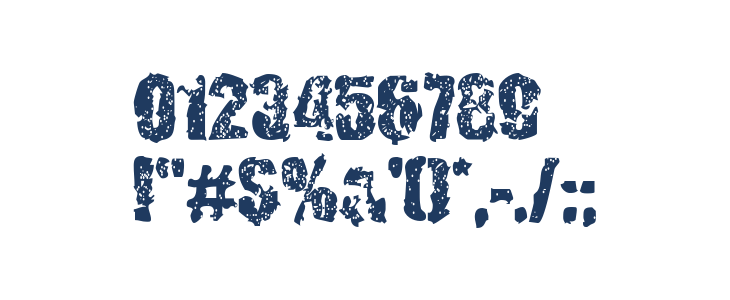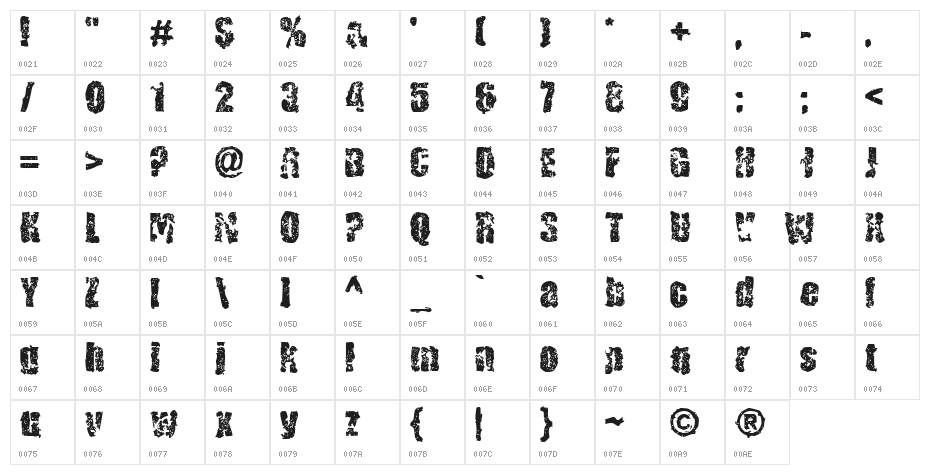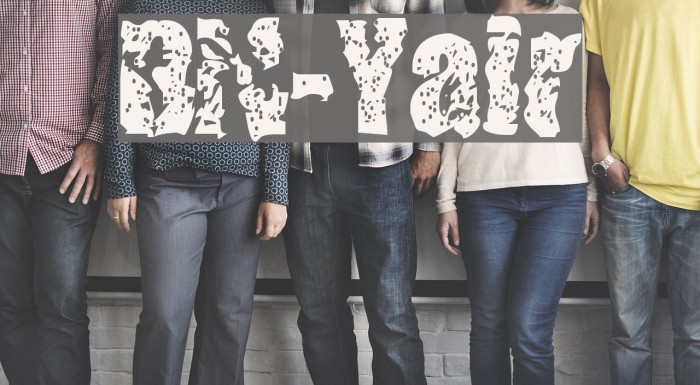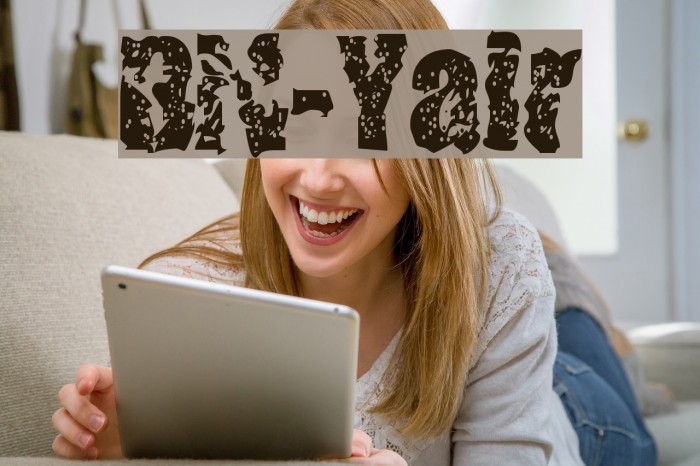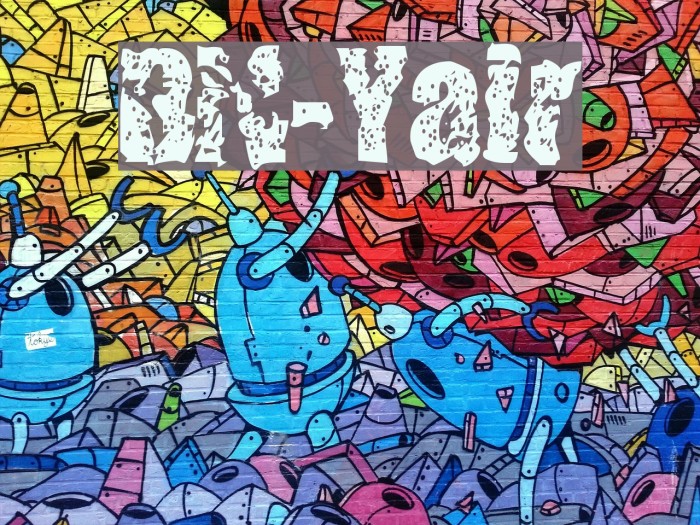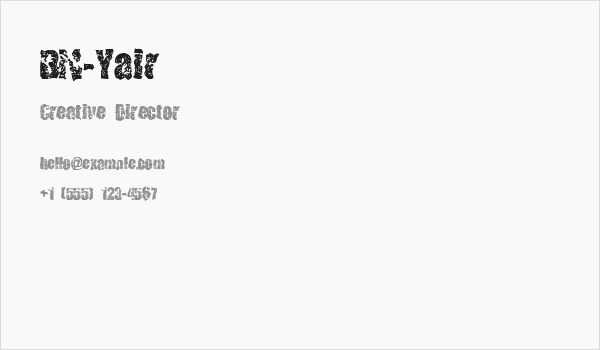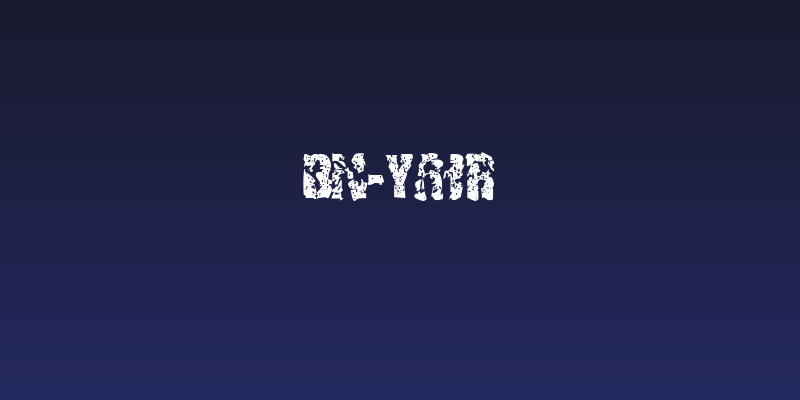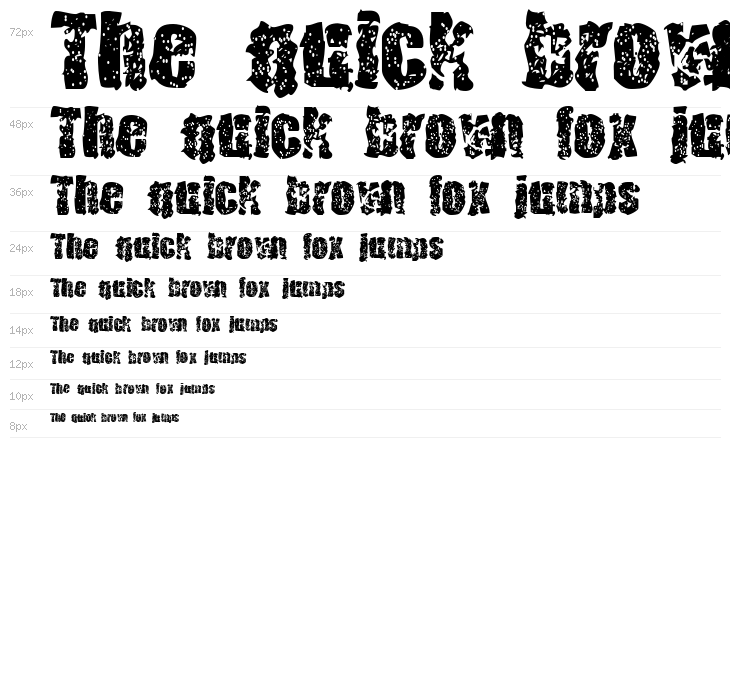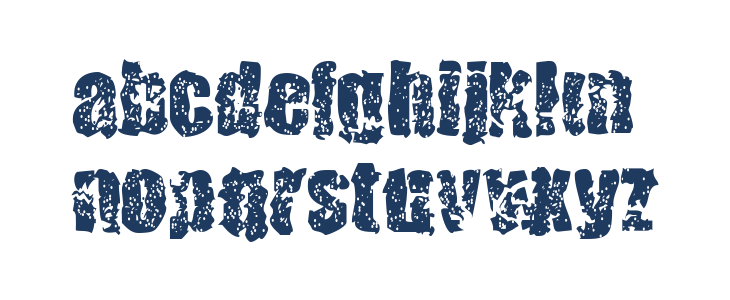
BN-Yair Font
BN-Yair Description
This font features a bold, distressed style with a grunge texture that gives it a worn and rugged appearance. The characters are heavily textured, with irregular edges and a speckled pattern that suggests erosion or decay. This design choice creates a dynamic and eye-catching effect, making it suitable for projects that require a bold statement. The uppercase and lowercase letters maintain a consistent style, while the numbers and special characters also follow the same distressed aesthetic. The font's unique appearance makes it ideal for creative and unconventional designs.
| Proposed Projects | Ideal for album covers, posters, urban-themed designs, and any project needing a bold, edgy look. |